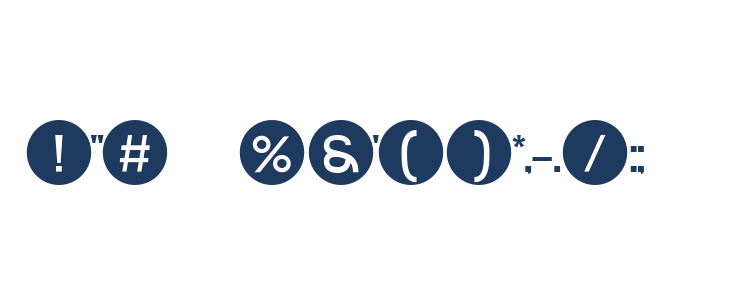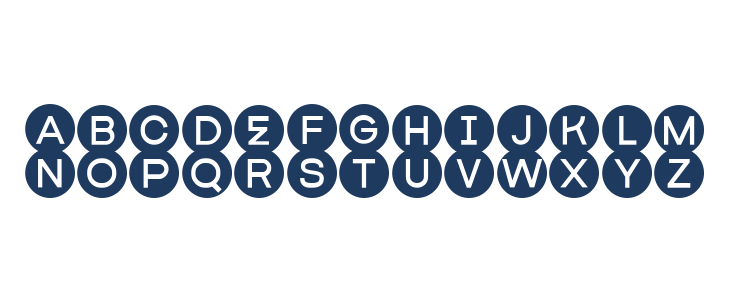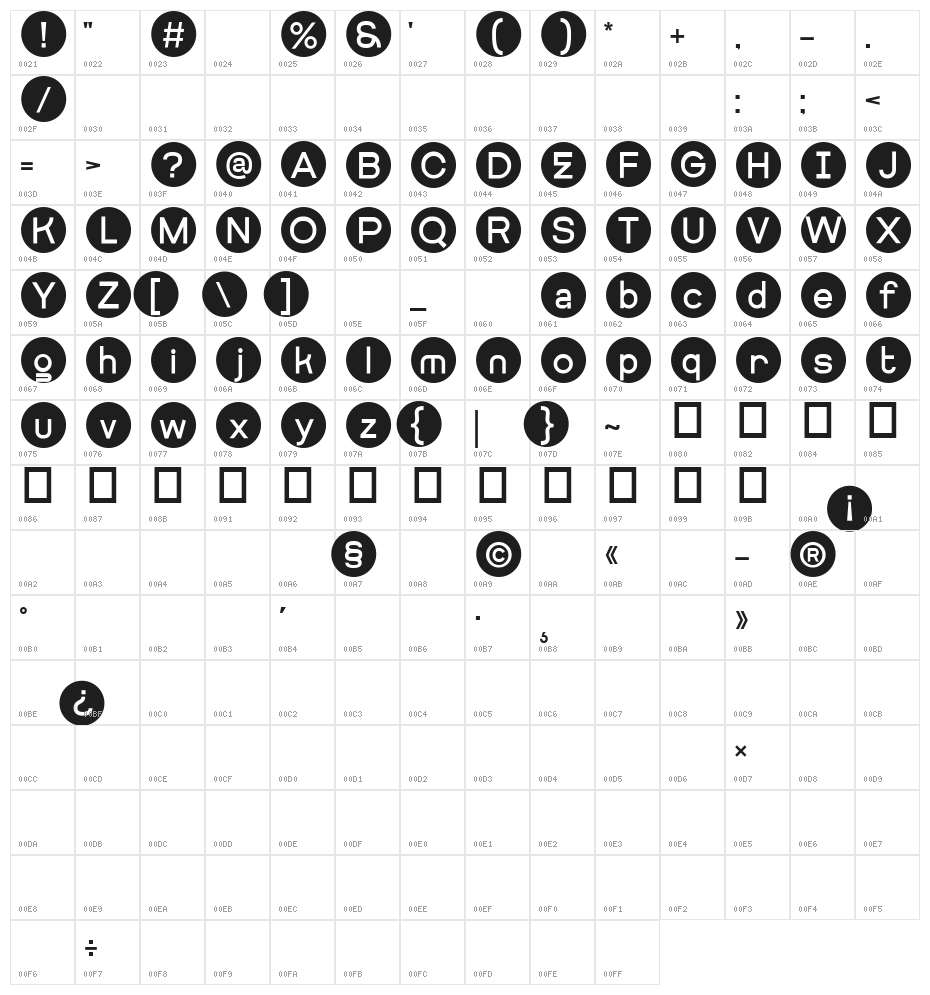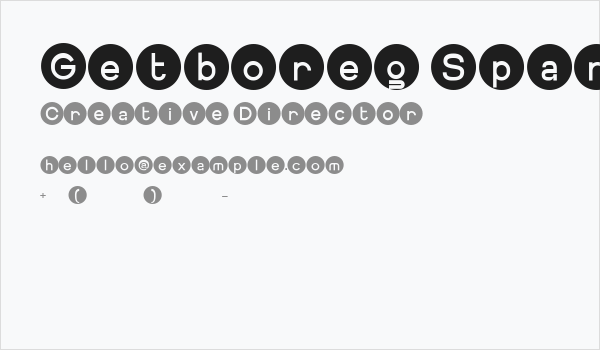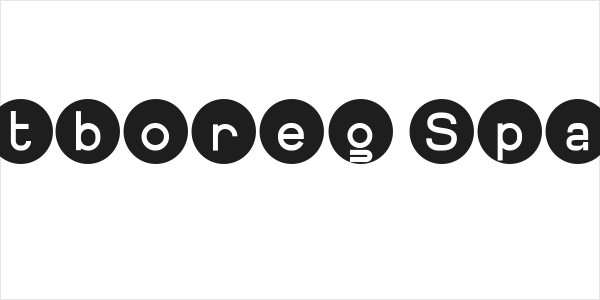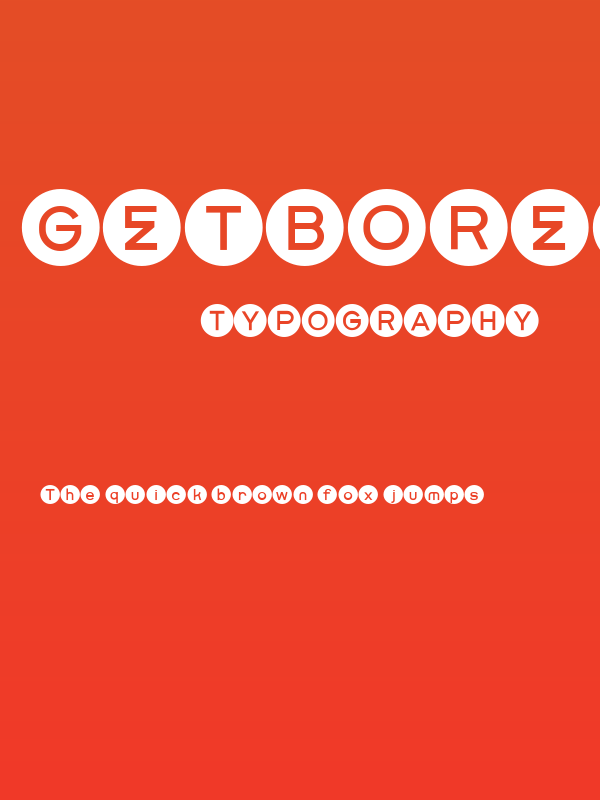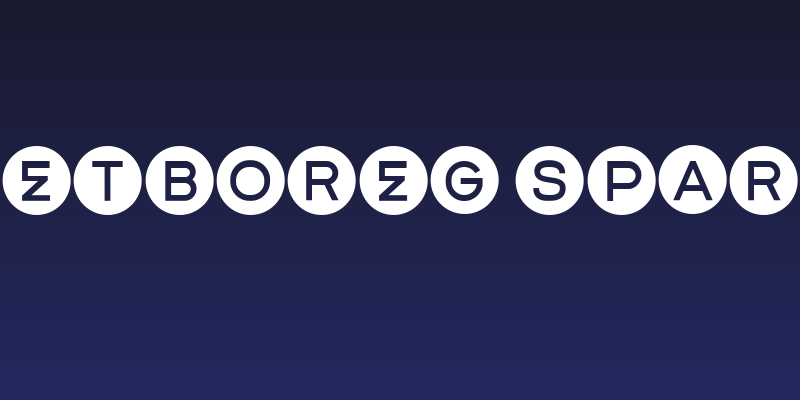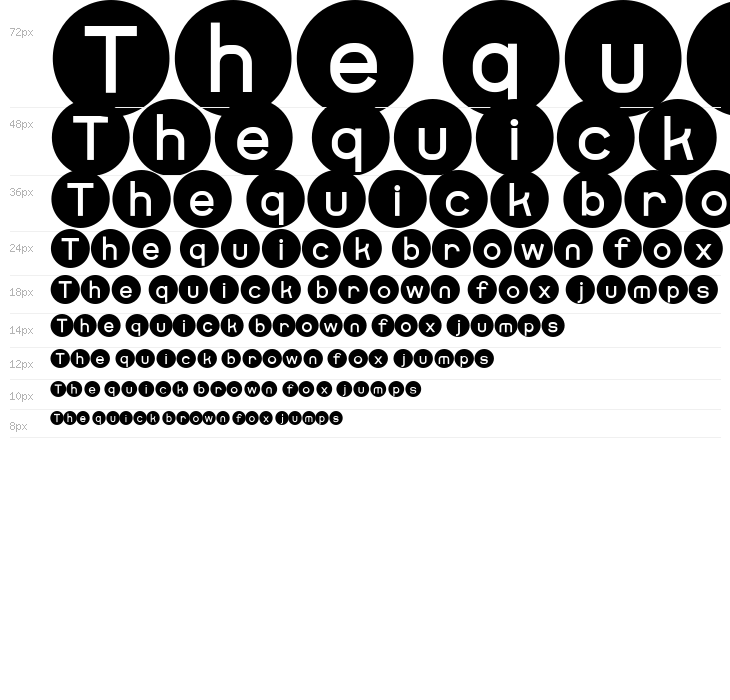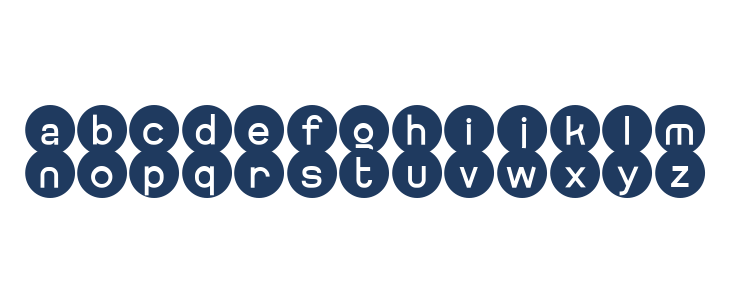
Getboreg Spare Font
Getboreg Spare Description
Geometric sans-serif letters placed inside solid black circles, creating a bold, high-contrast look with clear, modern letterforms and consistent circular backgrounds.
| Use Case | Headlines, Logos, Posters, Signage |
| Proposed Projects | Posters, branding, logos, signage, event invitations, packaging, display headlines. |